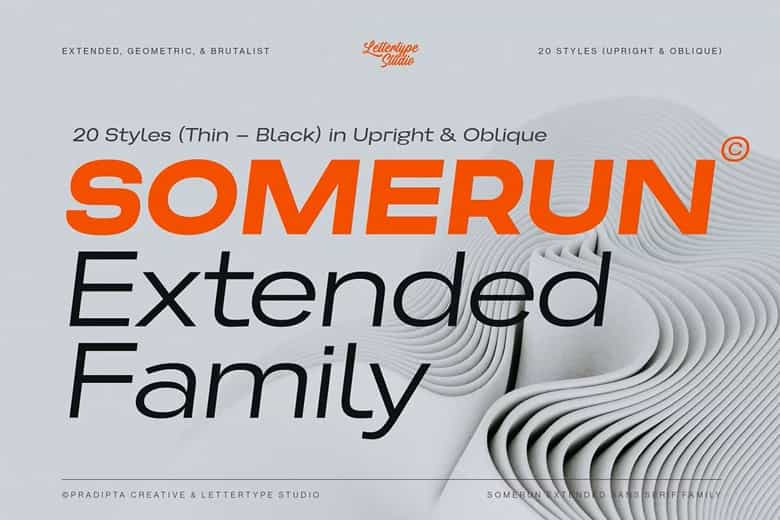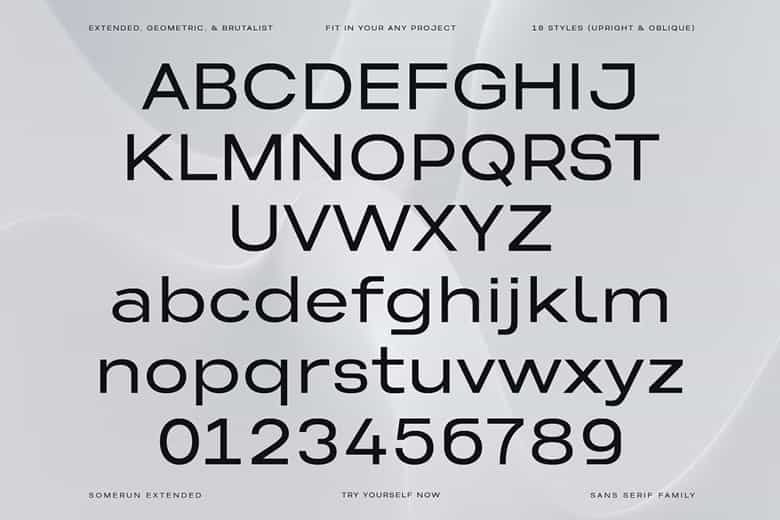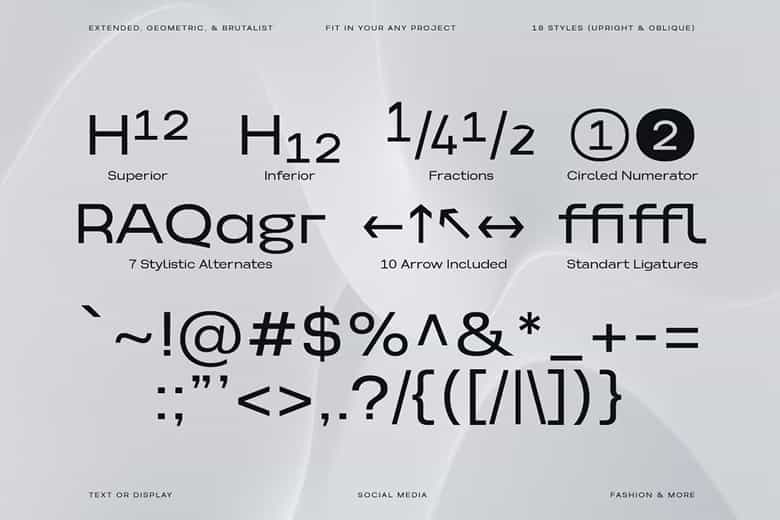
Somerun is a new elegant font with a list of sans serif extended fonts combined with grotesque geometric and brutalism themes. All of these fonts are designed with precision to offer legibility, neutrality and expressiveness as the element of modern designs. It comes in variety of weights, thin to extra black and has 20 styles with oblique version. Some of the OpenType include 7 of stylistic alternates (A, R, Q, a, g, r, & y), 5 figure variants (superiors, inferiors, fractions, circled numerators, and 4 standard ligatures (fi, ff, fl, ffi, & ffl), and a broad Latin language coverage.